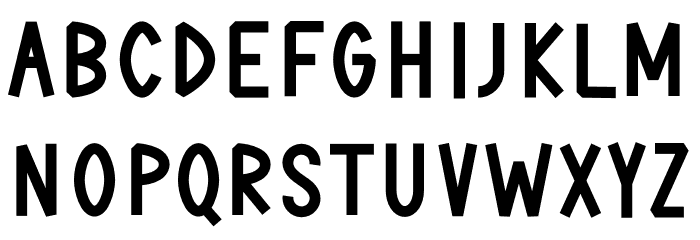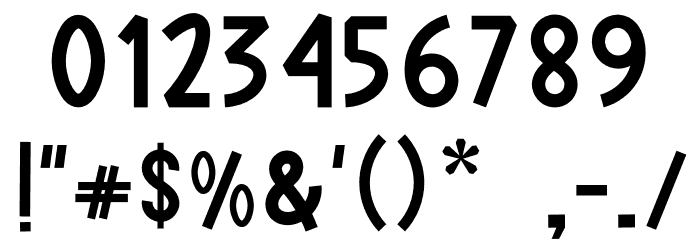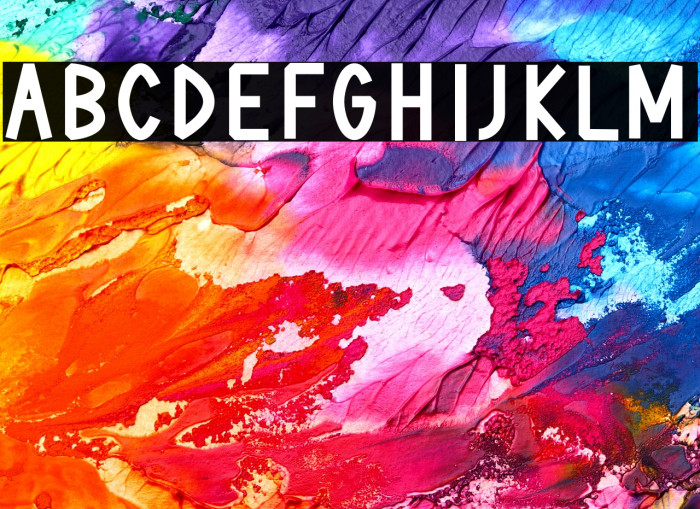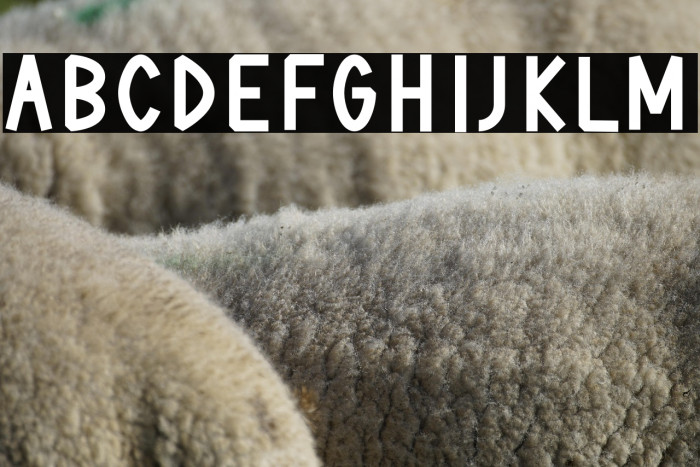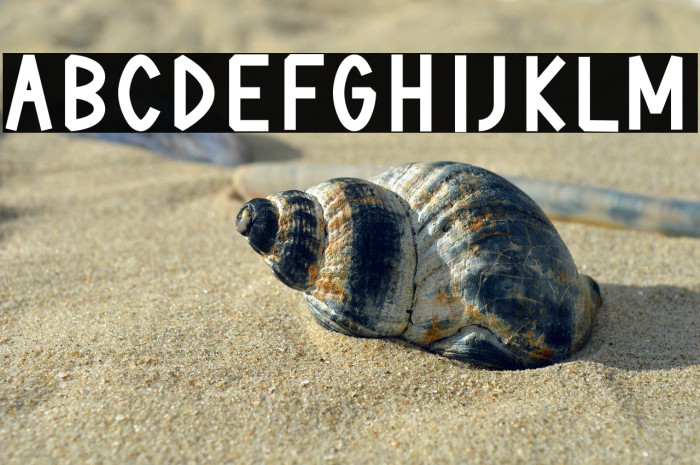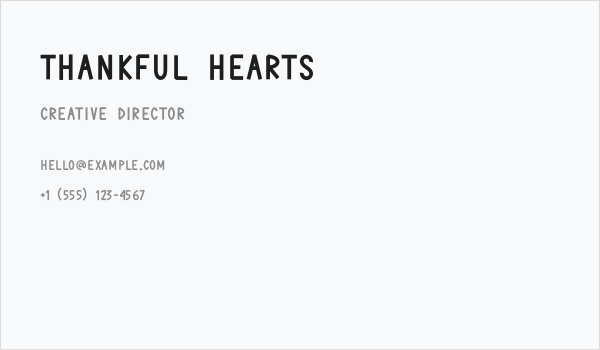
Thankful Hearts Font
This font features a bold and playful style with a slightly irregular and hand-drawn appearance. The characters are uppercase and lowercase, with numbers and a variety of special characters. The strokes are thick and consistent, giving it a strong presence. The letters have a slight tilt, adding a dynamic and informal feel. The overall look is modern and approachable, making it suitable for a variety of creative projects.
A bold, playful font with a hand-drawn, modern style.
- Font: Thankful Hearts
- Proposed Projects: Ideal for children's books, playful branding, posters, and creative invitations.